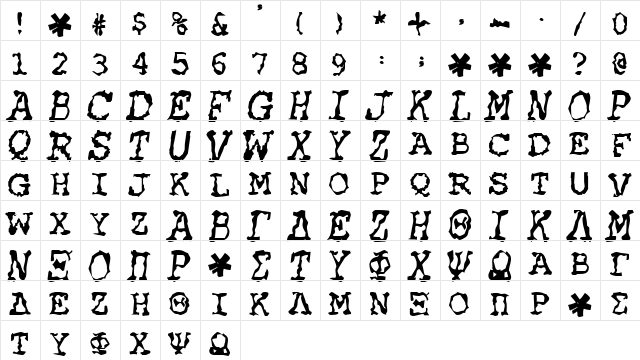
HEATWAVE Regular
Design Context for HEATWAVE Typeface
HEATWAVE is a composed and adaptable typeface that performs quietly and consistently across a wide range of design contexts.
Pro Tip: Use HEATWAVE in both headline and body roles to test its range before committing to a single application.